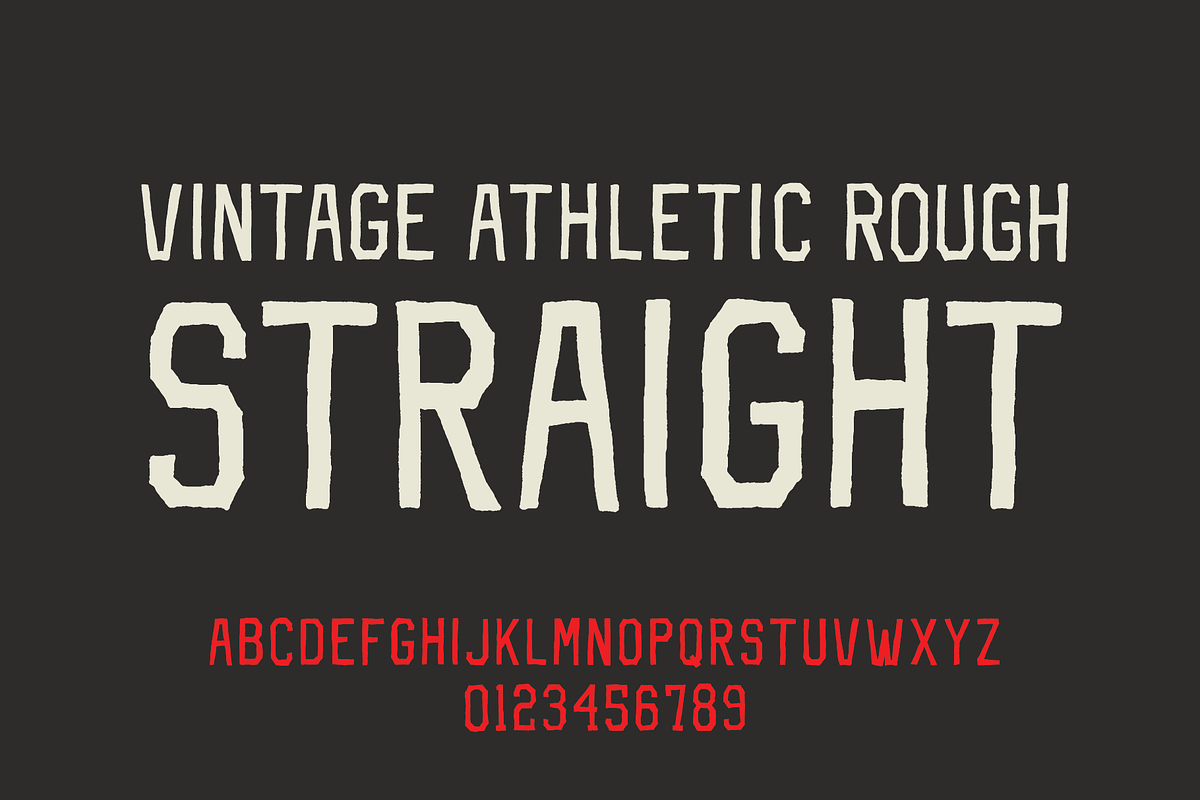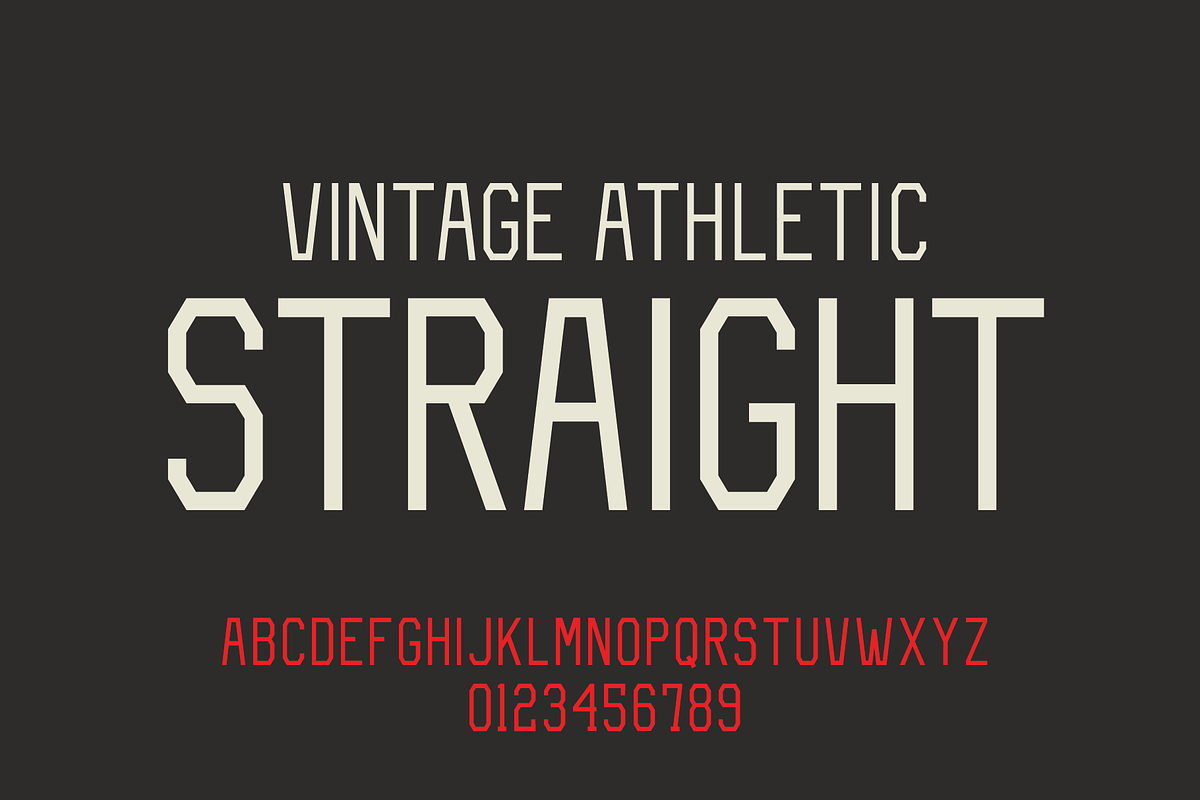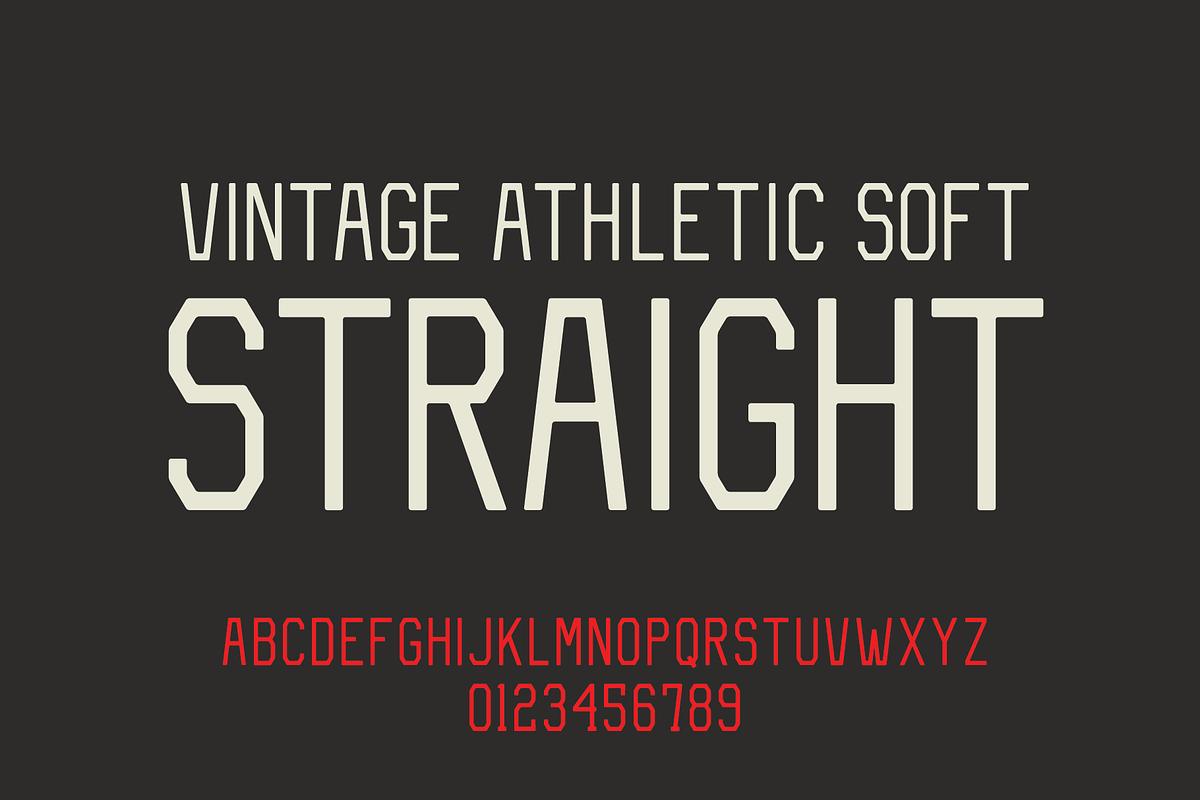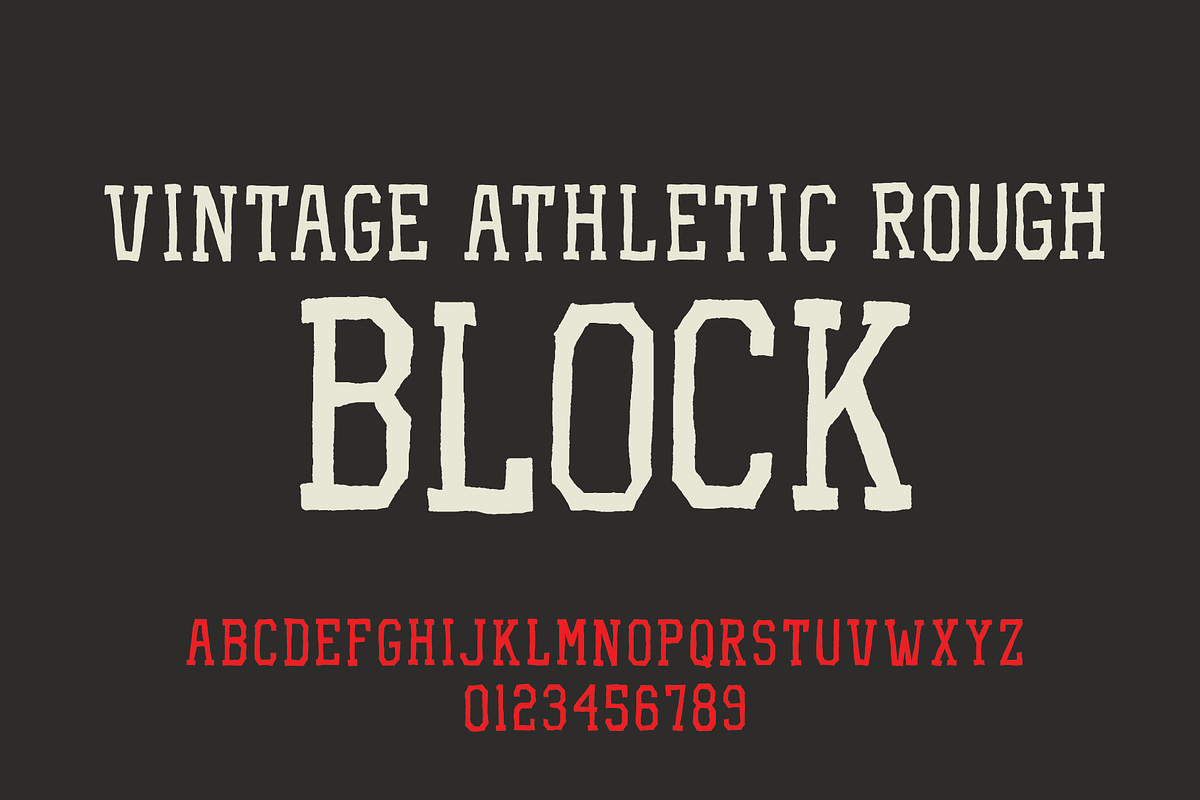
Vintage Athletic - Block Typeface
Vintage Athletic Typeface
Vintage Athletic Typeface includes 8 fonts that work perfectly together to build any athletic design your heart desires. Vintage Athletic includes 4 primary styles that have two versions each: Straight and Block. Straight is the serif-less version, and Block is the serif compliment. Each of the "Rough" versions are hand-drawn and contain 3 unique versions of each character. So, the options are endless! This is the ultimate, one-stop-shop typeface for all your vintage athletic needs.
Vintage Athletic Straight
Vintage Athletic Block
Vintage Athletic Soft Straight
Vintage Athletic Soft Block
Vintage Athletic Rough Straight
Vintage Athletic Rough Block
Vintage Athletic Rough Outline Straight
Vintage Athletic Rough Outline Block